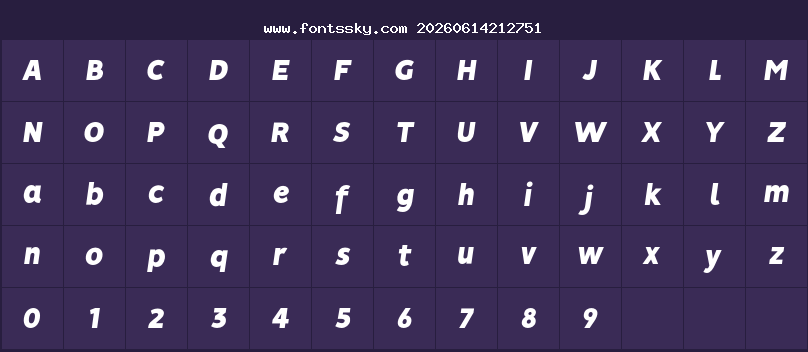
Vision Black Preview
• Font Name: Vision Black
• Full Font Name: Vision-BlackItalic
• PostScript Name: Vision-BlackItalic
About Vision Black.otf
Vision Black.otf is a modern, elegant sans-serif font designed for ultimate readability and visual harmony. Perfect for branding, headlines, web design, and print materials.